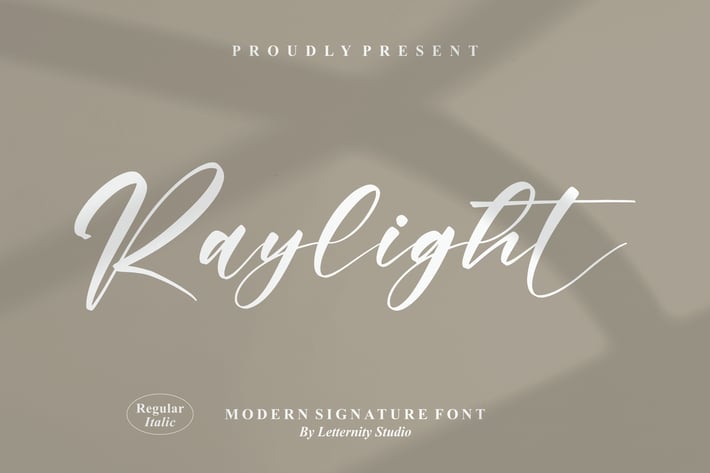
Raylight Signature Font
Raylight is a modern signature script with soft contrast, natural pen pressure, and effortless long strokes. Its flowing baseline and refined swashes create an elegant, feminine presence that works beautifully from small watermarks to bold headlines. Paired Regular & Italic styles, plus handy alternates and ligatures, make it easy to build bespoke, high-end typography in minutes. Let your message glide with Raylight.
+ Regular & Italic styles for flexible pairing
+ Contextual ligatures and alternates for a handwritten look
+ Stylish swashes and extended strokes
+ Full punctuation & numerals
+ Clean curves with careful kerning for smooth print & web output
+ Signature logos & personal branding
+ Wedding invitations & stationery
+ Photography watermarks
+ Fashion/beauty branding & packaging
+ Social media quotes & story covers
+ Editorial titles, lookbooks, and posters
Turn simple words into a graceful signature with Raylight.